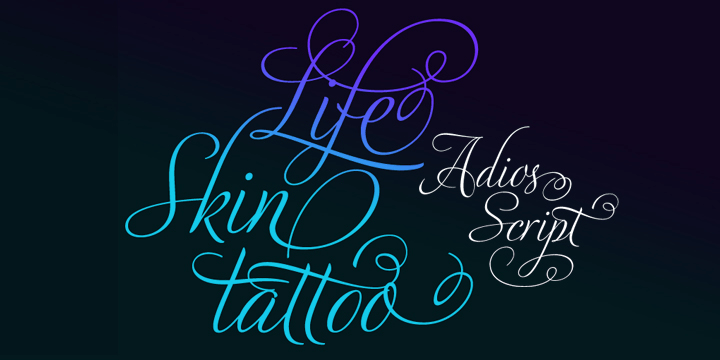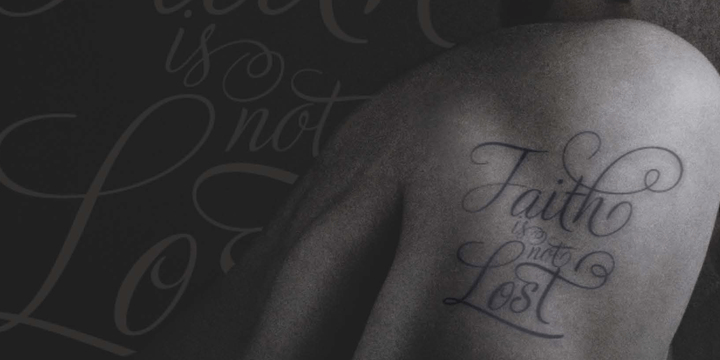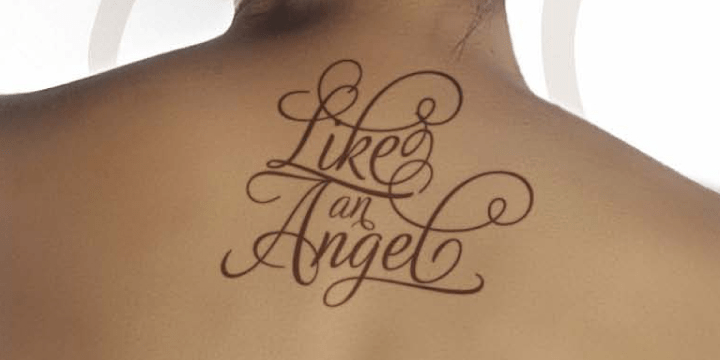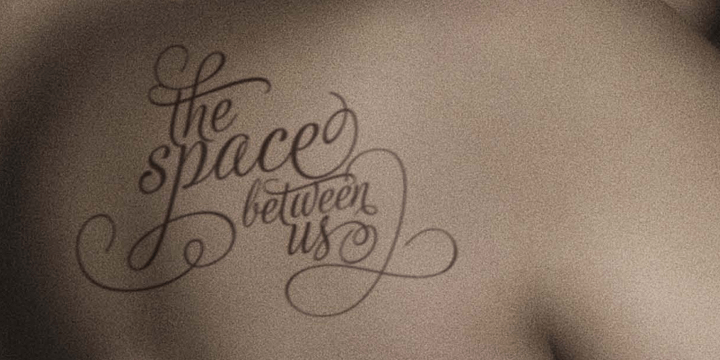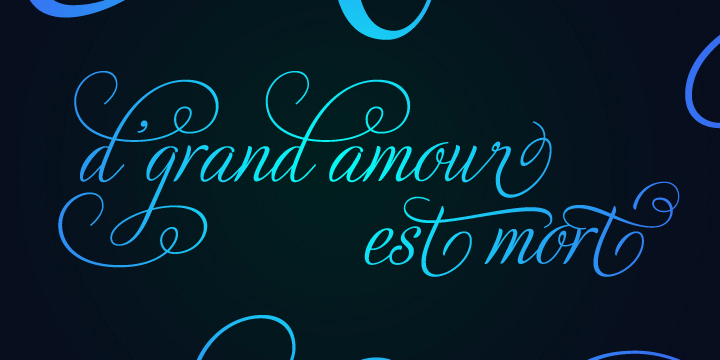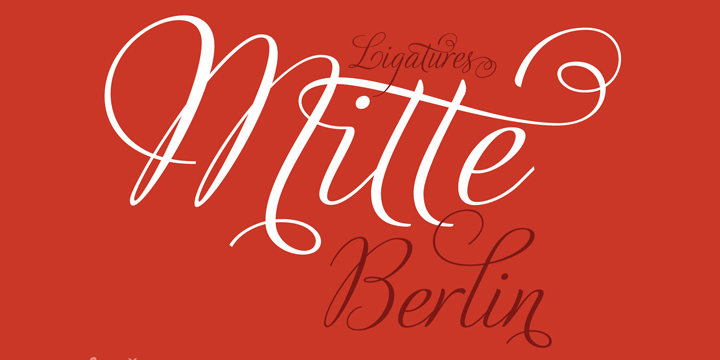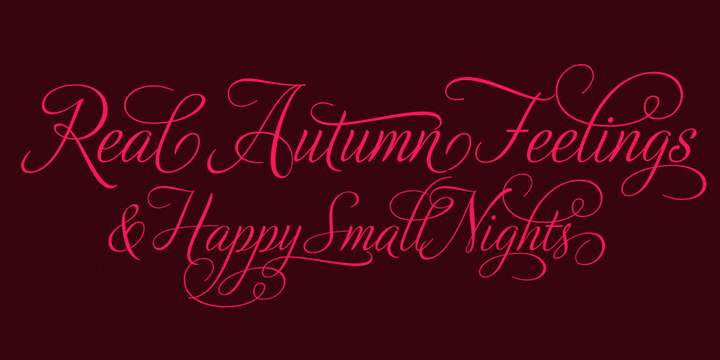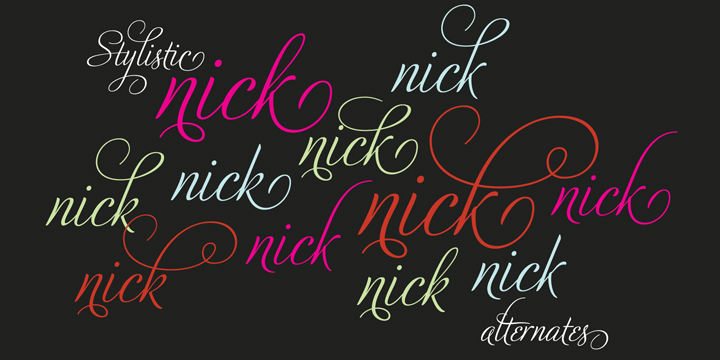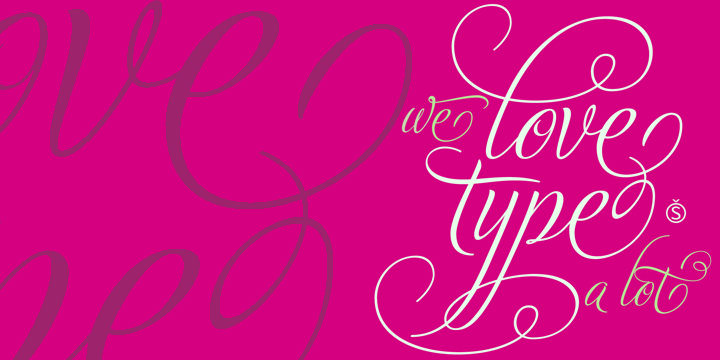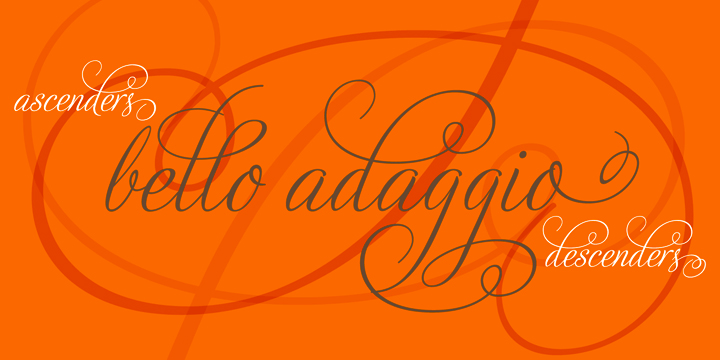
Adios Script Pro
Font Family by Sudtipos
Romantic, decorative Adios Script is one of Alejandro Paul's most elaborate and technically refined faces to date. Inspired by designs in ?how-to? commercial lettering guides of the 1940s, it has been refined and brought into the 21st century through a huge variety of ornate swash letterforms. The lowercase ?h? alone offers 43 variants. Hundreds of ornamental ascenders and descenders allow a beautiful interplay of strokes and combinations, while avoiding overlaps or conflicts. Adios Script features a mind-boggling 1,470 characters in total, in OpenType format. Adios Script received a Certificate of Excellence from the Type Directors Club.